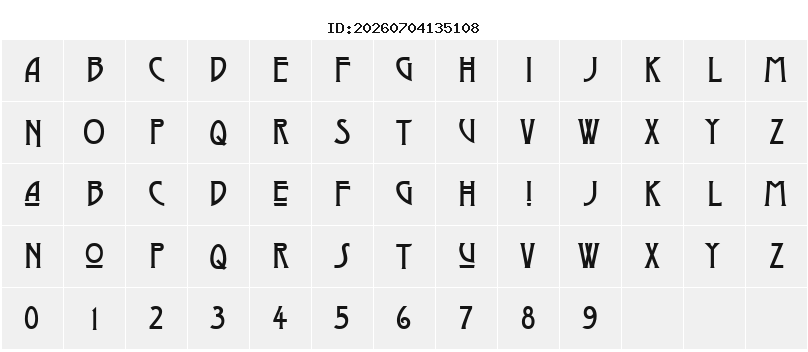
About Dyer.ttf
Dyer.ttf is a modern, elegant sans-serif font designed for ultimate readability and visual harmony. Perfect for branding, headlines, web design, and print materials.